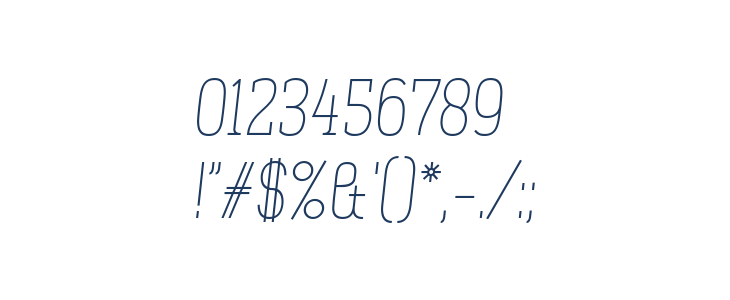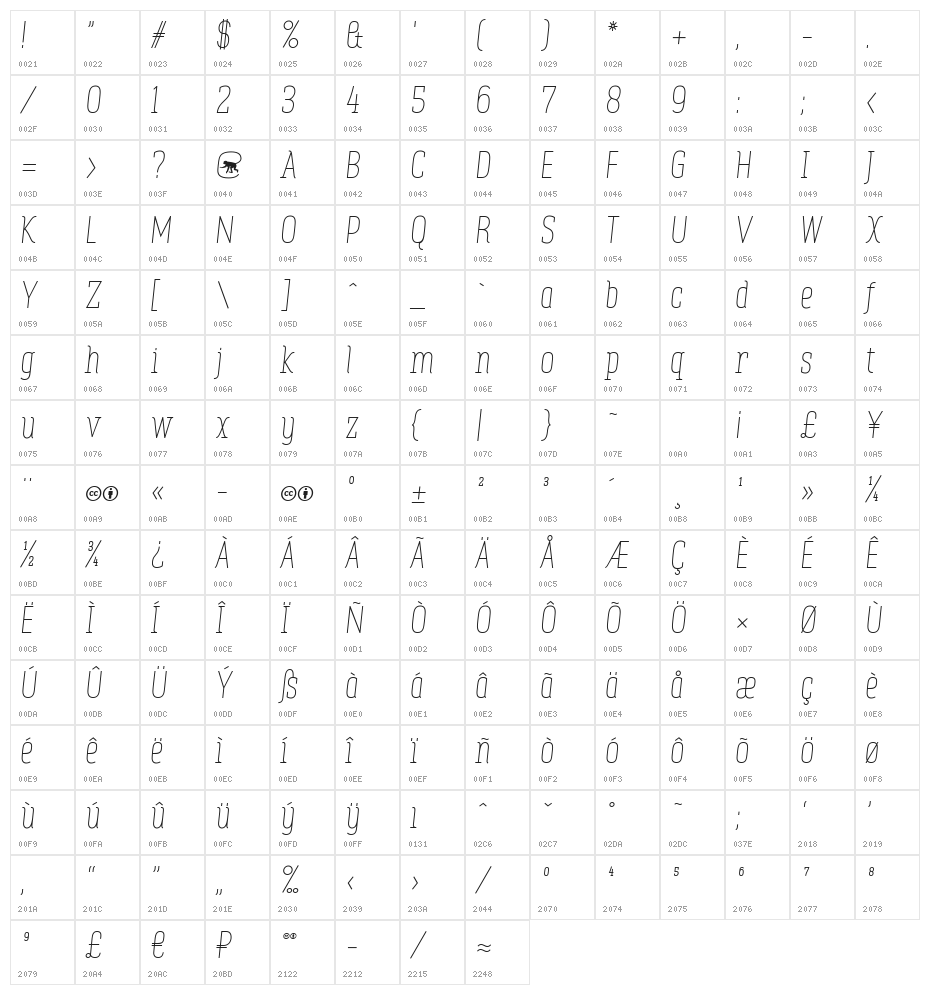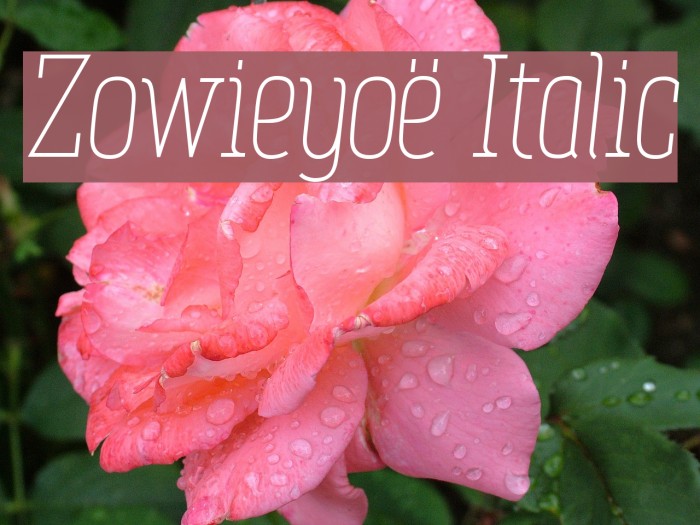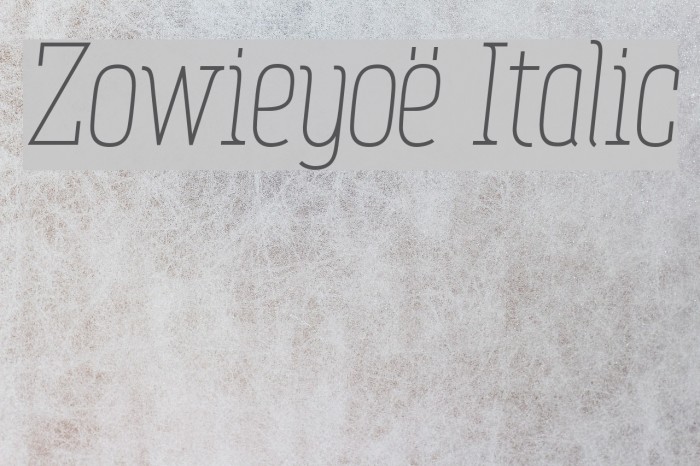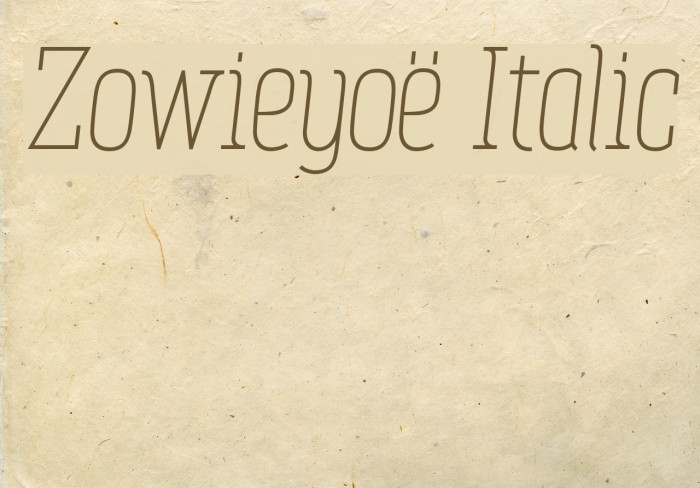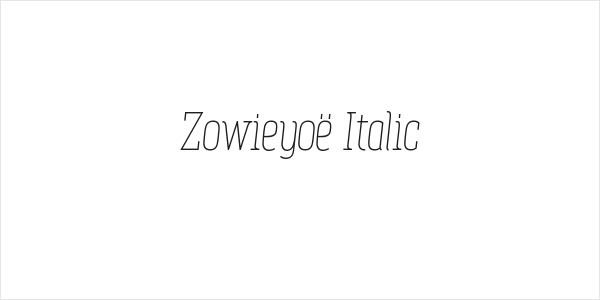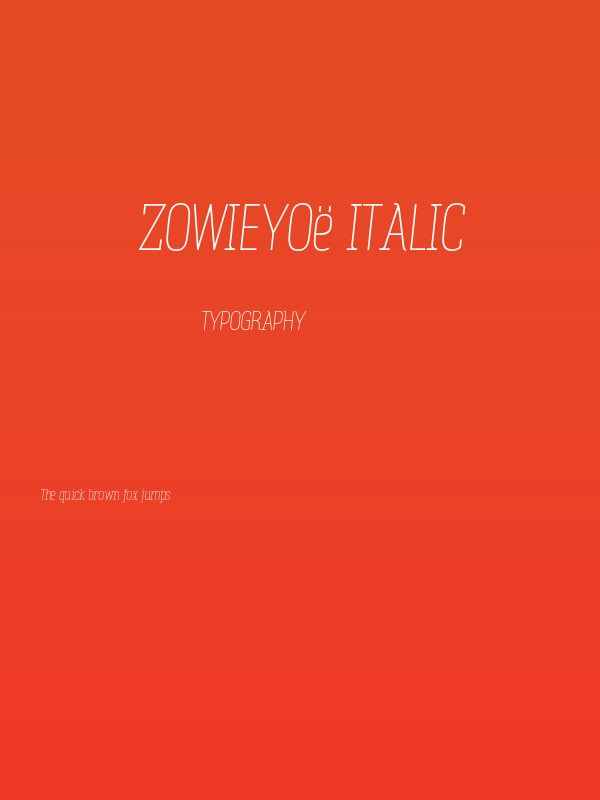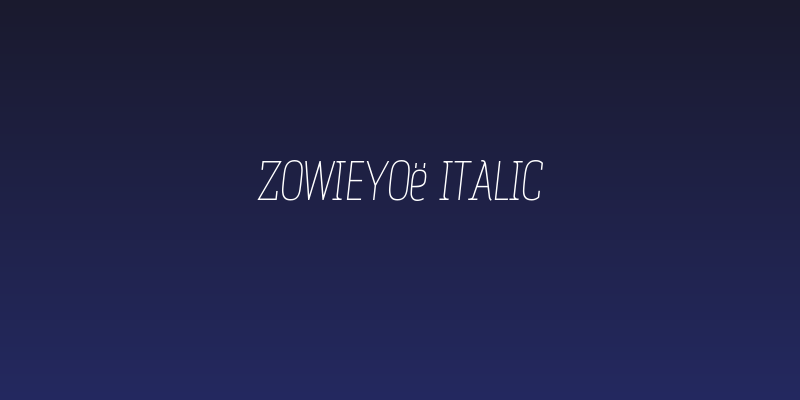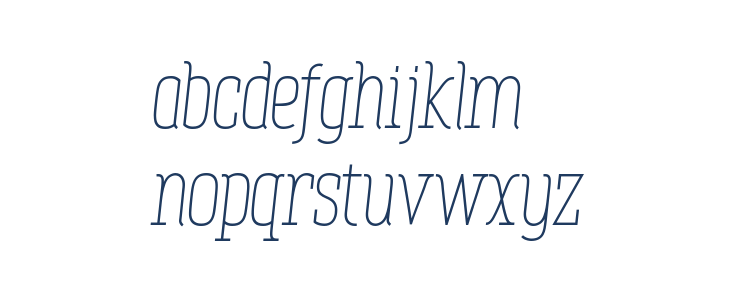
Zowieyoë Italic Font
Zowieyoë Italic Description
This font features a sleek, italicized style with elongated letterforms that convey a sense of motion and elegance. The characters are slightly condensed, giving it a modern and sophisticated appearance. The strokes are consistent in weight, providing a uniform look across all characters. The uppercase letters are tall and commanding, while the lowercase letters maintain a balanced and harmonious flow. The numerals are clear and legible, making them suitable for various applications. Special characters are well-integrated, maintaining the overall aesthetic of the font. Its clean lines and contemporary design make it versatile for both digital and print media.